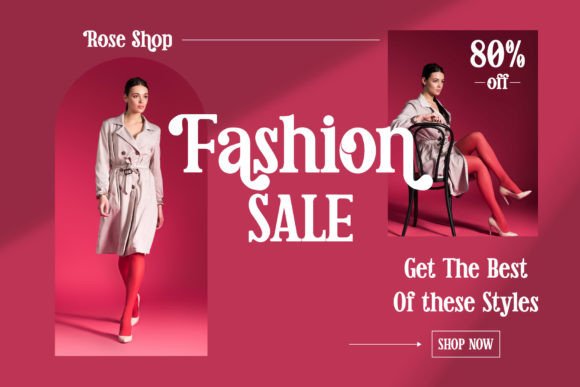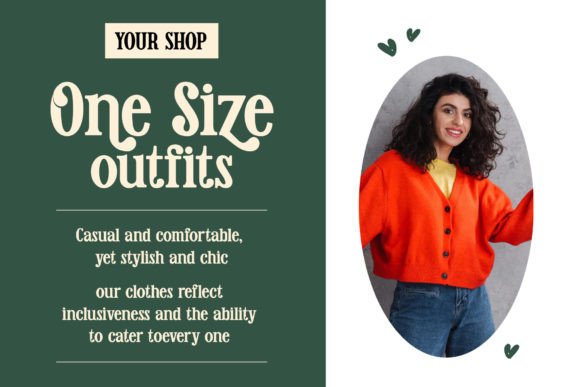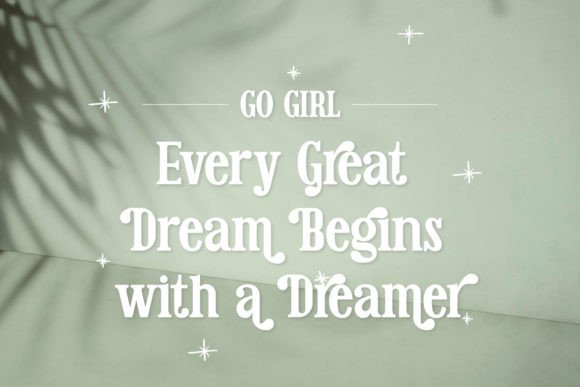
Introduction to Major Font
Major Font is designed to be versatile.
Compatible with both modern and vintage design styles You can use it for various projects, such as blog posts, logos, branding, ads, invitations, greeting cards, planners, photo albums, decorations, and much more.
Key Features of Major Font
Why Choose Major Font?
Major Font offers exceptional quality and versatility, making it a valuable addition to your design toolkit. Whether you’re creating for personal projects or commercial use, Major Font delivers professional results.